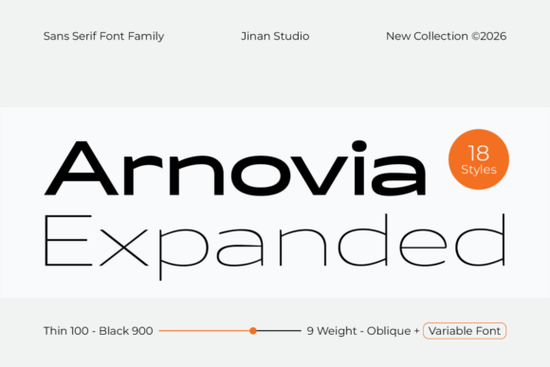
If you're looking for a versatile and modern typeface that can add a bold and distinctive touch to your designs, the Arnovia Expanded Font is a great choice. This contemporary variable typeface is designed to deliver a strong presence with its wide proportions and refined versatility.
Understanding the Design of Arnovia Expanded
Arnovia Expanded is built with a modern expanded structure, combining strong geometric foundations with a smooth visual rhythm. This results in a confident and distinctive appearance that works well in both digital and print applications. The typeface features 18 carefully crafted styles, including a fully functional Variable Font version, which allows for extensive creative flexibility. Whether you need a thin and elegant expression or a powerful and impactful heavy weight, Arnovia Expanded has you covered.
What Makes Arnovia Expanded Stand Out?
The standout feature of Arnovia Expanded is its variable format, which provides seamless control across the weight range. This means you can achieve more precise typography and adaptive design workflows, making it a go-to choice for designers who value flexibility and precision. The expanded proportions of the font create a spacious and premium feel, while maintaining strong readability and balanced letterforms across all sizes.
Where Can You Use Arnovia Expanded?
Arnovia Expanded is incredibly versatile and can be used in a wide range of design projects. Here are some of the most common applications:
- Branding and Logos: The bold and distinctive appearance of Arnovia Expanded makes it perfect for creating memorable logos and branding materials.
- Editorial Layouts: The clean and modern look of the font is ideal for editorial layouts, such as magazines and newsletters.
- Packaging and Posters: The expanded proportions and strong presence make it a great choice for packaging and poster designs.
- Headlines and Advertising: Its bold and impactful style is perfect for headlines and advertising materials.
- Web Design and Social Media Visuals: The variable format and strong readability make it suitable for web design and social media visuals.
- Sports Themes and Futuristic Concepts: The modern and bold appearance of the font also works well for sports themes and futuristic design concepts.
How Does Arnovia Expanded Compare to Other Sans Serif Fonts?
When compared to other sans serif fonts, Arnovia Expanded stands out with its unique combination of expanded proportions and geometric foundations. For example, if you're familiar with the Morning Sunshine Font, you'll notice that Arnovia Expanded offers a more structured and bold appearance. Similarly, when compared to the Monteo Font and Brunko Font, Arnovia Expanded provides a more expansive and impactful feel, making it a great choice for projects that require a strong and confident presence.
Practical Tips for Using Arnovia Expanded
Here are some practical tips to help you get the most out of Arnovia Expanded in your design projects:
- Experiment with Weights: Take advantage of the variable format to experiment with different weights and find the perfect balance for your design.
- Mix and Match Styles: Combine different styles within the family to create a cohesive and dynamic design.
- Test Readability: Ensure that the font maintains strong readability at various sizes, especially for longer text blocks.
- Use for Headings and Titles: The bold and impactful style of Arnovia Expanded makes it ideal for headings and titles, where a strong presence is needed.
Next Steps for Designers and Creatives
Now that you have a better understanding of Arnovia Expanded and its many uses, here’s a quick checklist to help you integrate it into your next project:
- Experiment with the different weights and styles to find the best fit for your design.
- Test the font in various applications, such as branding, editorial layouts, and web design.
- Combine it with complementary fonts to create a balanced and harmonious design.
By following these steps, you can effectively use Arnovia Expanded to enhance the visual impact and professionalism of your design projects.